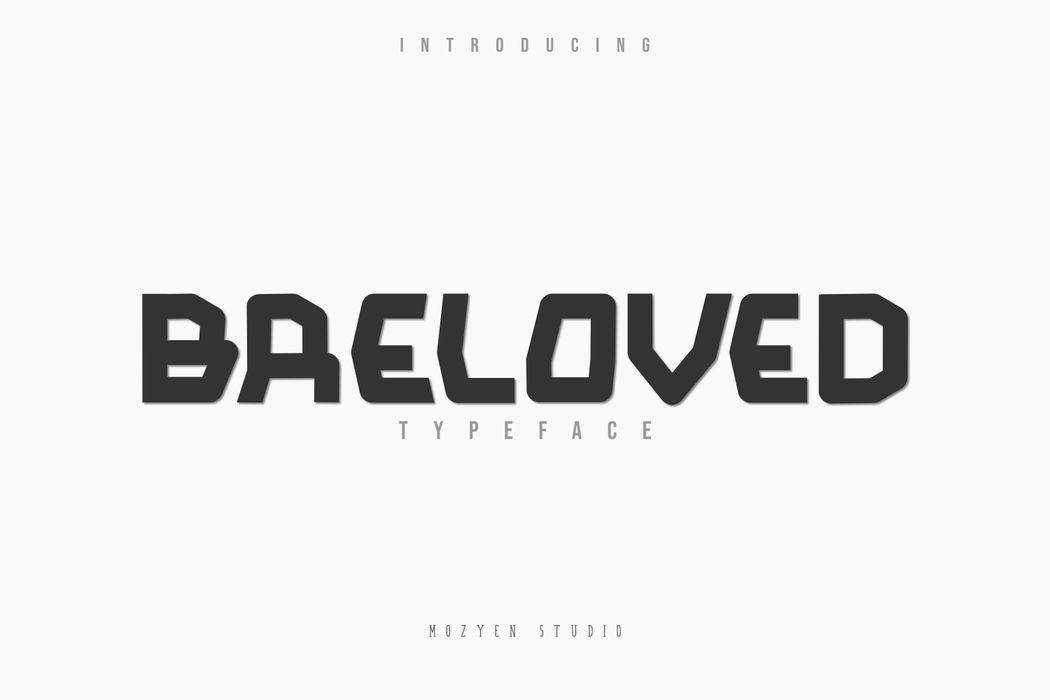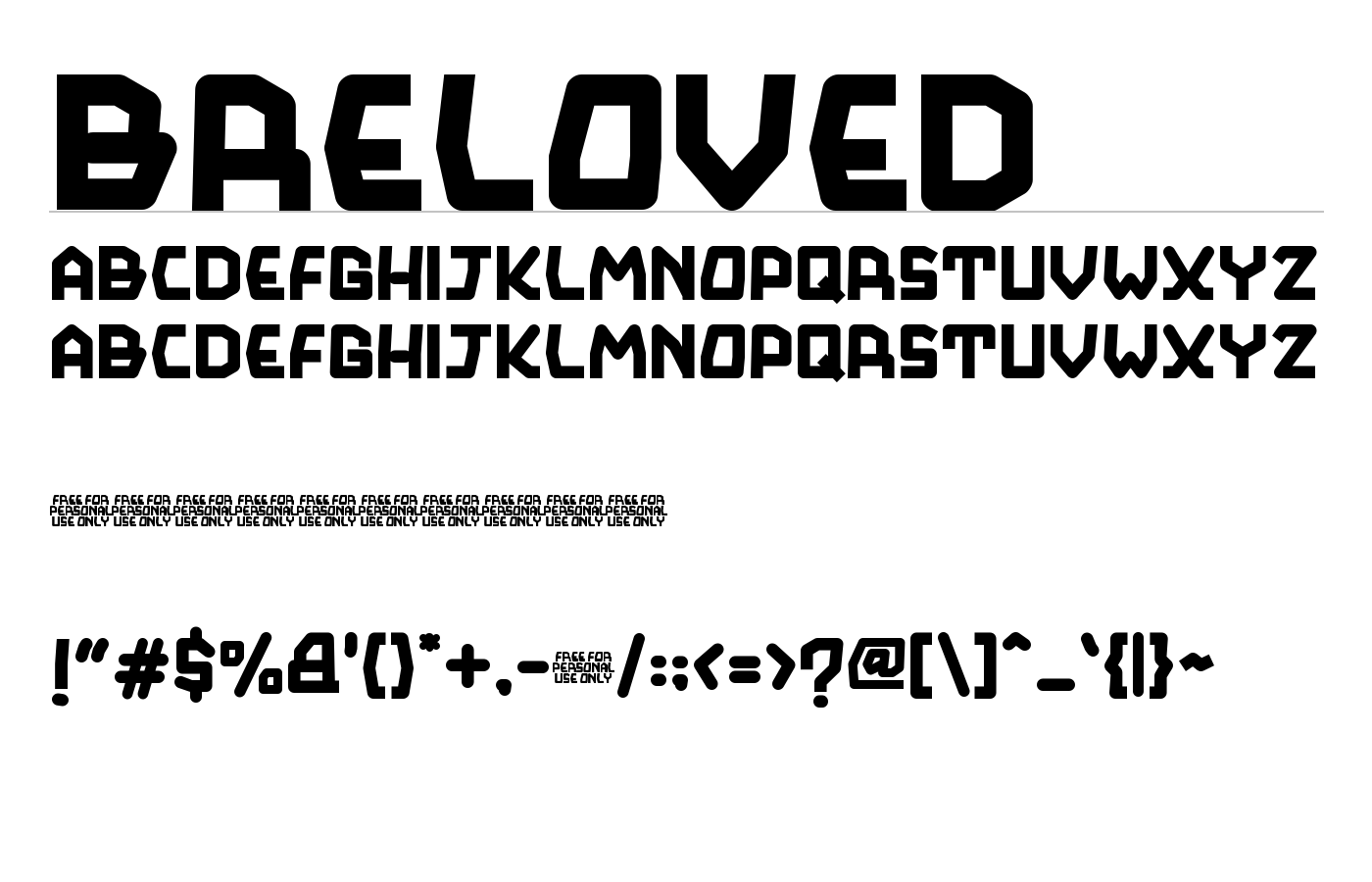
Breloved is a bold, geometric sans serif font with a striking, modern look characterized by angular shapes and a slightly condensed structure. Its strong, uniform strokes and unique letterforms give it a sharp, industrial personality, making it ideal for attention-grabbing headlines, branding, and futuristic design themes where a distinctive, edgy feel is desired.
Breloved Font
About Breloved Font
| Font family | Breloved Font |
| Release date | 2020-09-23 |
| Designer | Designed by Mozyen Studio |